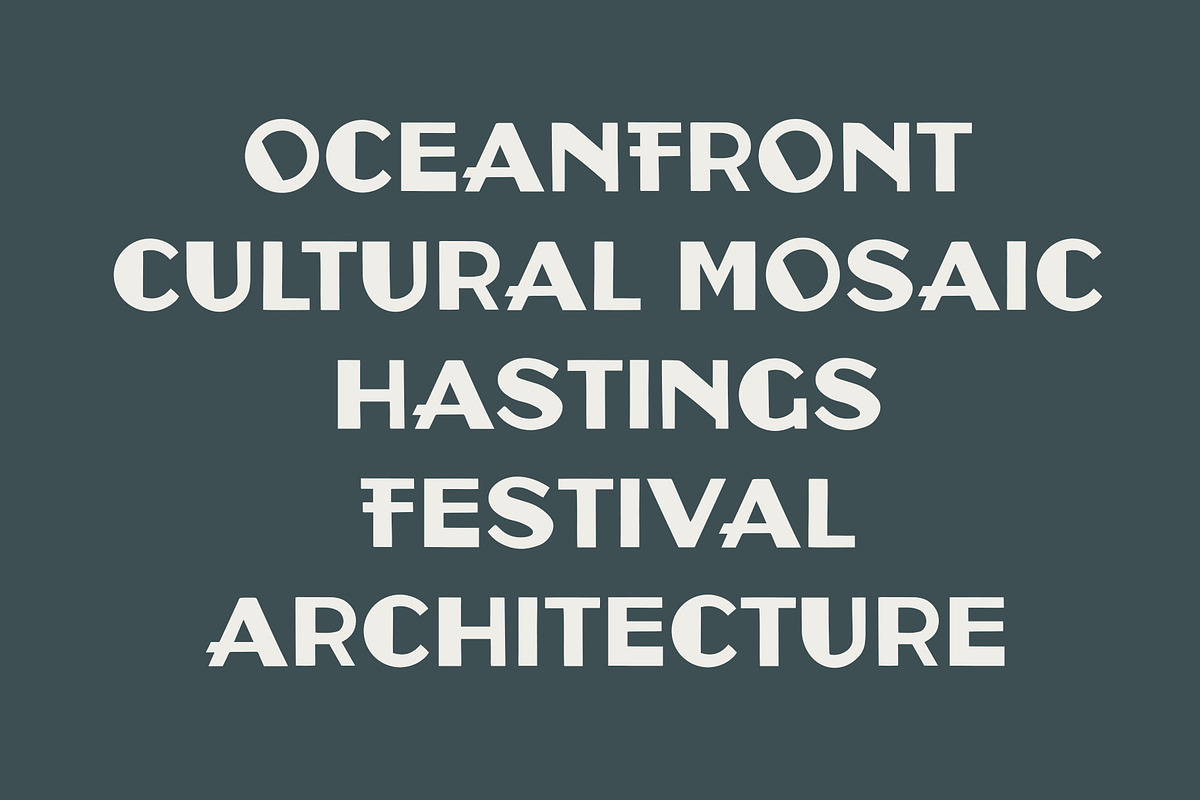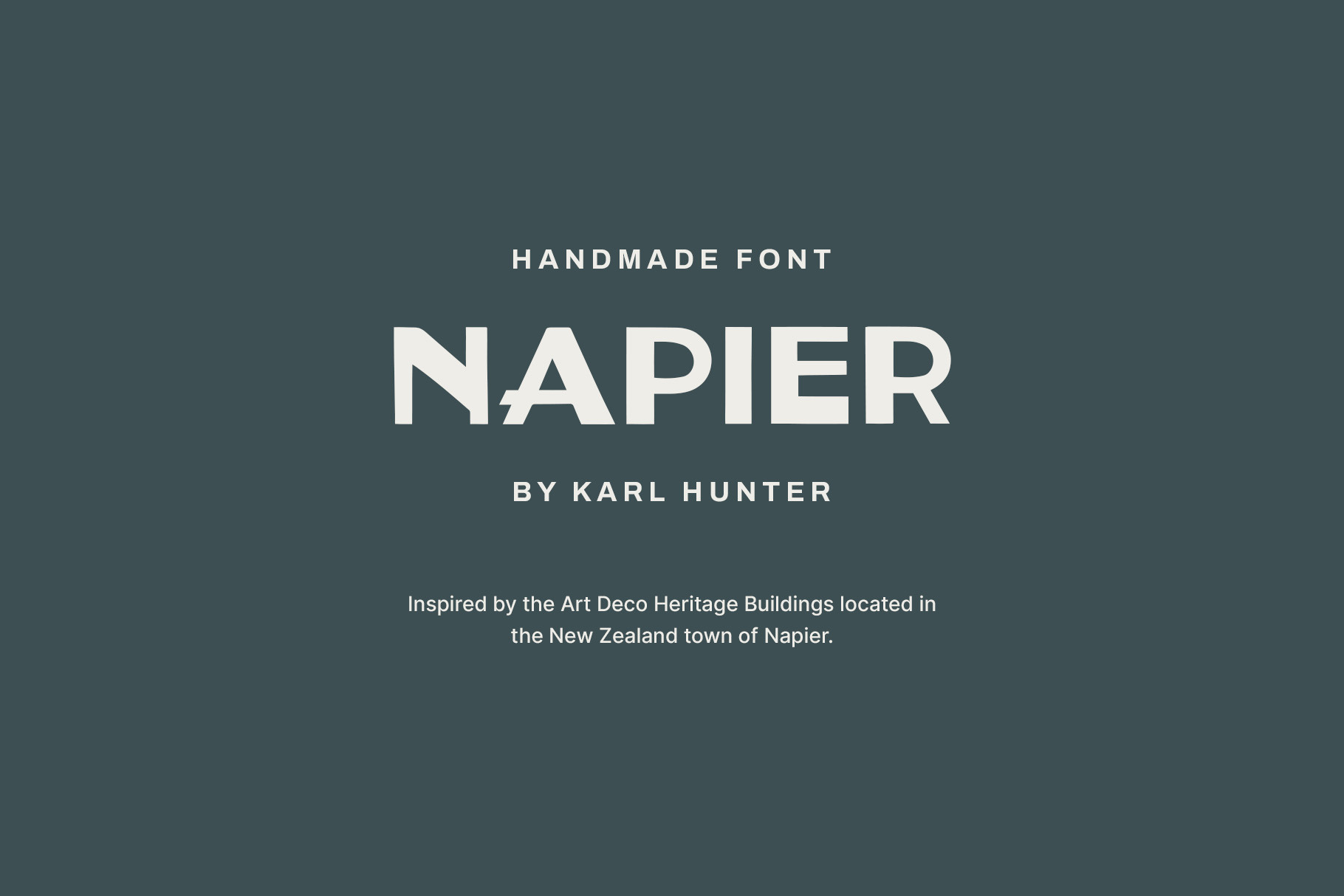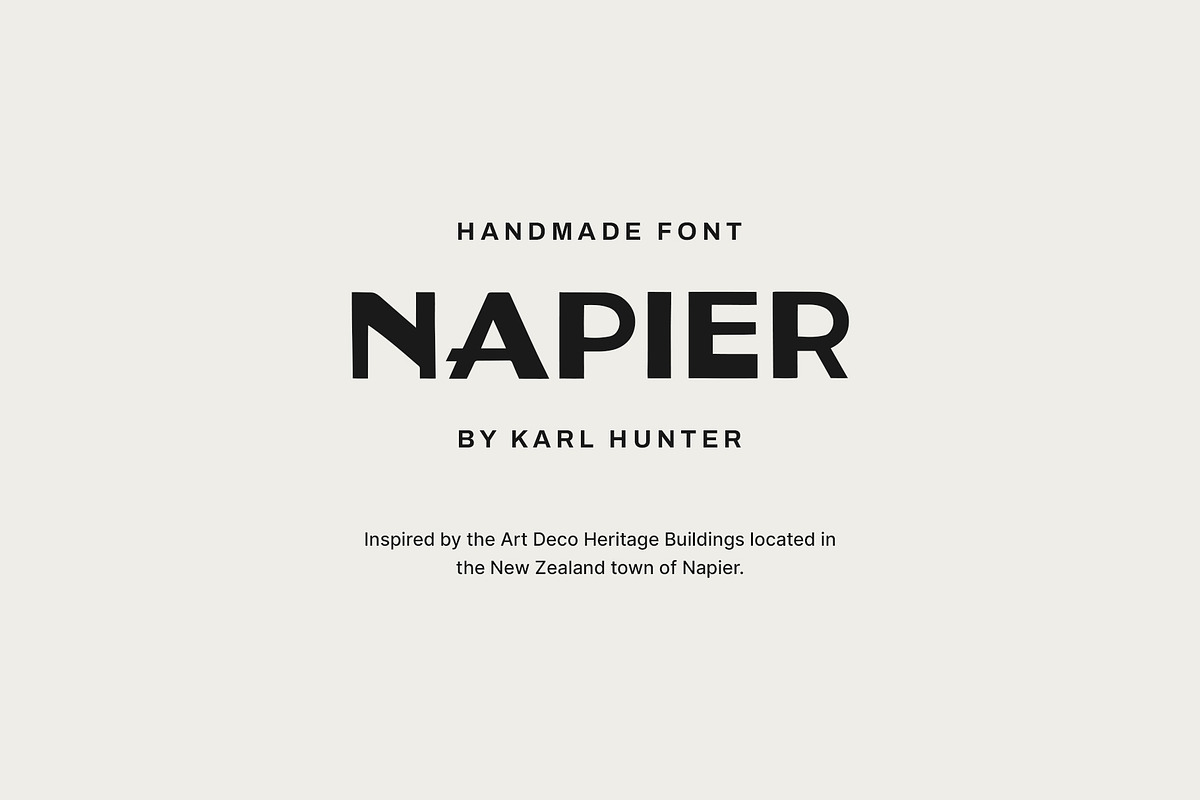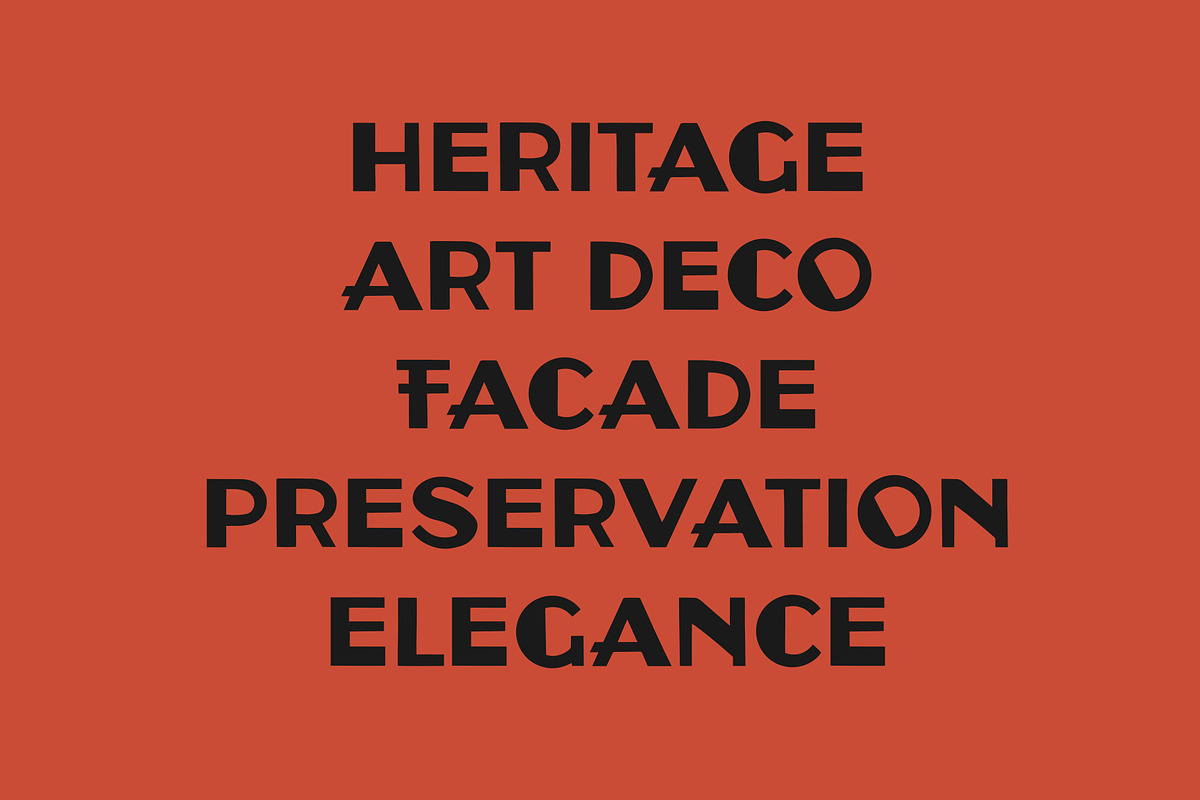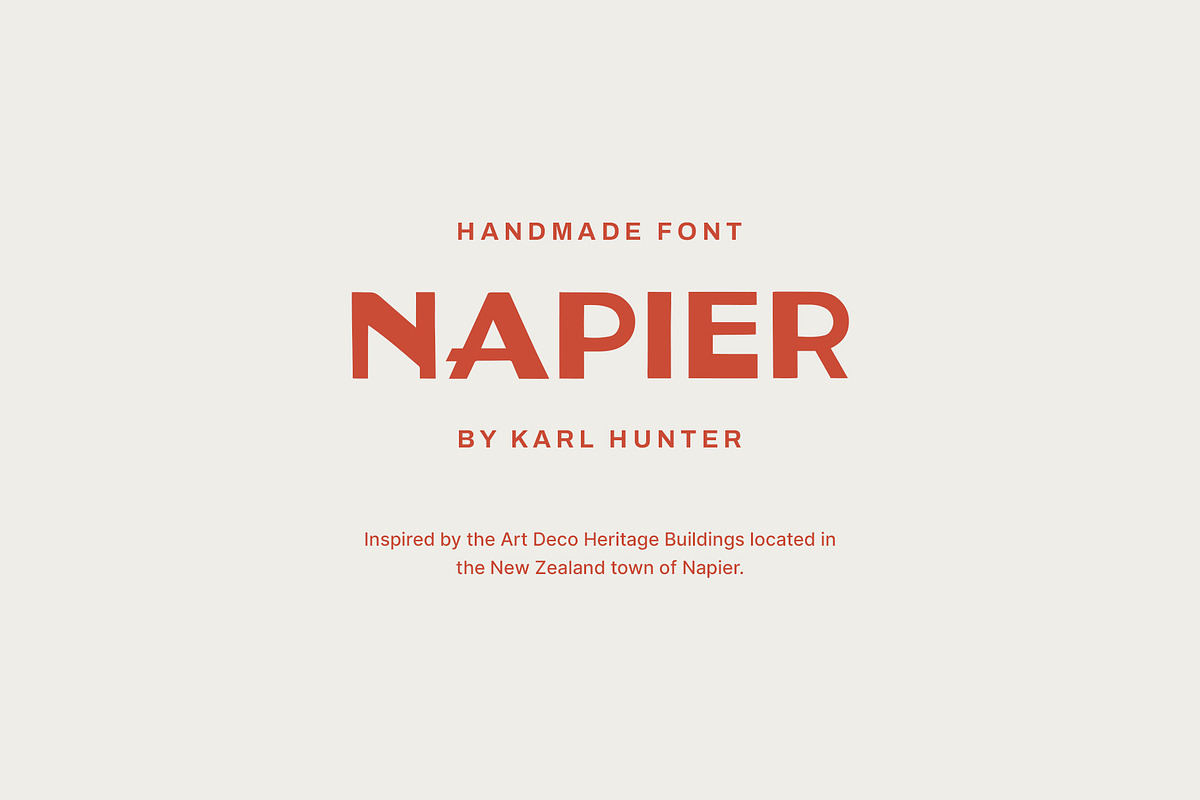
Napier Font
Introducing "Napier" a captivating hand-drawn font meticulously crafted to embody the timeless elegance of Art Deco Heritage Buildings in Napier, New Zealand.
It mixes the old-timey look with a modern twist, making it perfect for invitations, branding, posters, and editorial design. "Napier" exudes timeless charm and nostalgia.
Elevate your projects with this unique font, where every letter tells a tale of elegance.